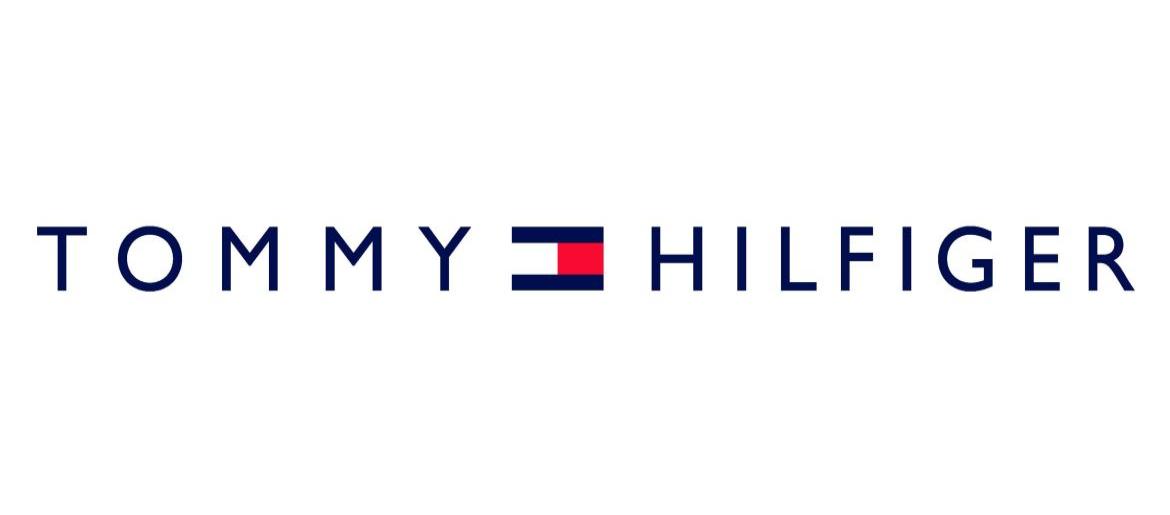
Tommy Hilfiger Font
What Font Does Tommy Hilfiger Use?
The Tommy Hilfiger font used in the iconic logo is Gill Sans MT Cyrillic Pro Medium, a clean and timeless commercial typeface known for its balanced geometry and classic British design heritage. Its crisp lines and elegant proportions perfectly complement the brand’s polished, all-American aesthetic. While this exact font requires a commercial license, we also found a free alternative font that delivers a very similar look for personal projects or designs inspired by the Tommy Hilfiger style.
About Tommy Hilfiger
Tommy Hilfiger, founded in 1985 by designer Tommy Hilfiger, is one of the most recognizable American fashion brands in the world. Built on a foundation of preppy, modern, and casually sophisticated style, the brand reflects the classic East Coast lifestyle with a contemporary twist. From clothing and accessories to fragrances and home collections, Tommy Hilfiger has become synonymous with clean design, bold colors, and a strong sense of Americana. Its iconic red, white, and blue logo and signature typography reinforce the brand’s identity as a timeless symbol of modern American fashion.